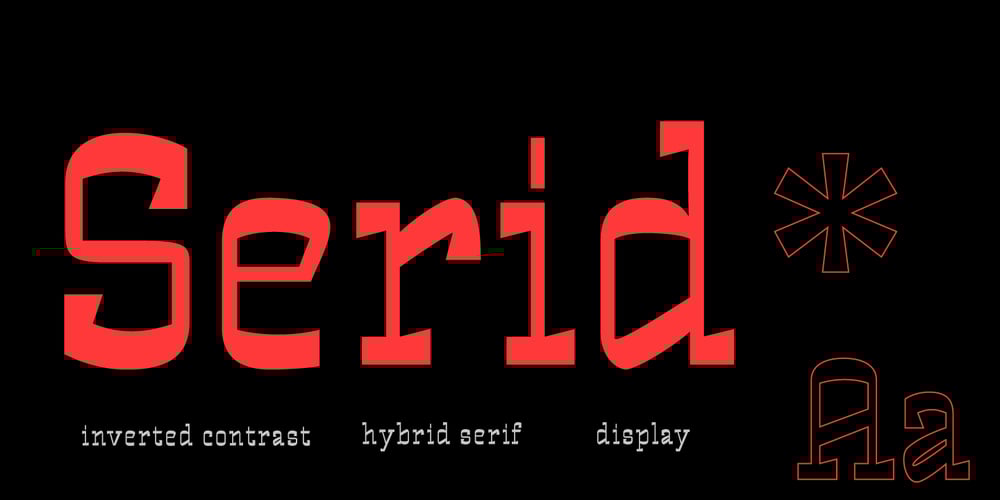
Serid Font Family was designed by Samuel Vicente and published by Samuel Vicente Types. Serid contains 1 styles and family package options. SERID is a display font condensed and regular designed for editorial applications. Inverted contrast, features a serif hybrid that gives a decorative character and personality to the font. Being a display type, intended for usein titles or in small blocks of text, from 24pt. The name SERID comes from the combination of words “SERif” and “hybrID”, resulting SERID.